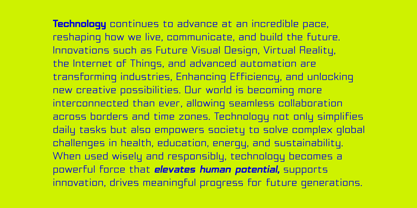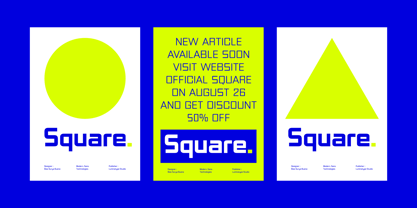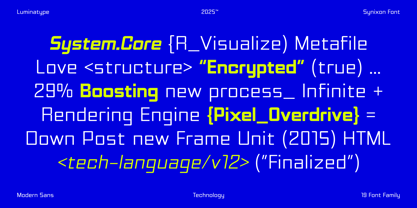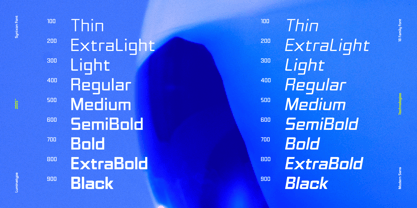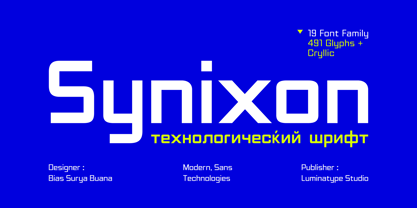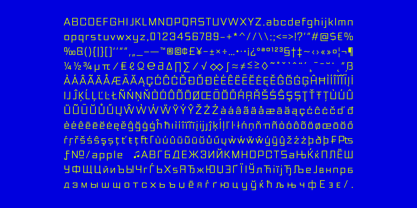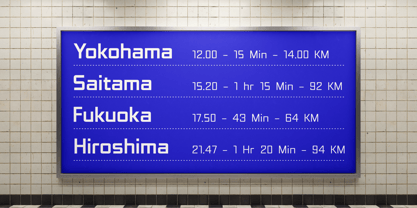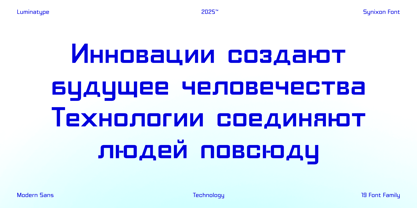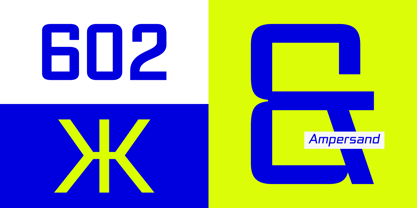
Synixon
by Luminatype Studio
The Synixon Font Family was designed by and published by Luminatype Studio. Synixon contains 20 styles and family package options. More about this family
Synixon is a modern technological sans-serif typeface designed by Luminatype Studio, crafted for creators who seek clarity, power, and precision in every letterform. Engineered with a forward-thinking aesthetic, Synixon delivers a sleek and highly functional visual tone that elevates any contemporary design. This advanced type family features 19 weights from Thin to Black, accompanied by matching Italic styles from Thin–Black. Synixon also includes Cyrillic support and a robust set of 491 glyphs, ensuring broad versatility and seamless global communication. Built on a concept of simplicity, strength, and modern sharpness, Synixon offers excellent legibility even at small sizes — making it ideal for clean interfaces and high-tech visual environments. Its refined geometric construction and confident structure create a distinct presence without sacrificing readability or balance. Perfectly suited for Branding, Brand Identity, Logos, Websites, UI/UX, Editorial layouts, and a wide range of modern design needs, Synixon adapts effortlessly to both minimalistic and futuristic aesthetics. Choose Synixon and bring a bold, intelligent, and innovative character to your next project — a font crafted to make your design impossible to ignore.